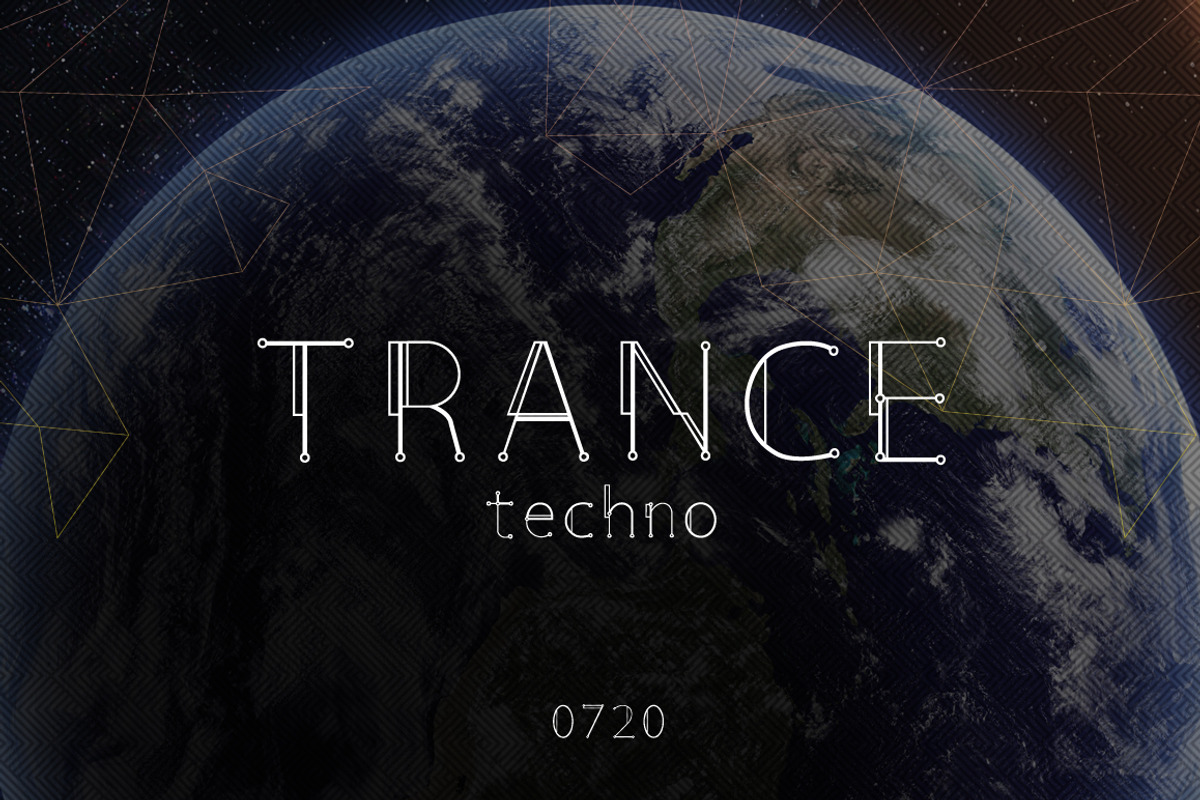
Circle Line Font
Circle Line Font by alit design is a font selected for branding, posters, packaging, typography.
Why Circle Line Font is worth a look
Circle Line Font by alit design fits naturally into Branding, posters, packaging, typography.